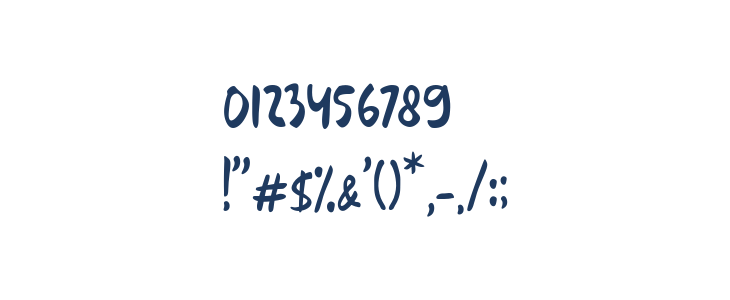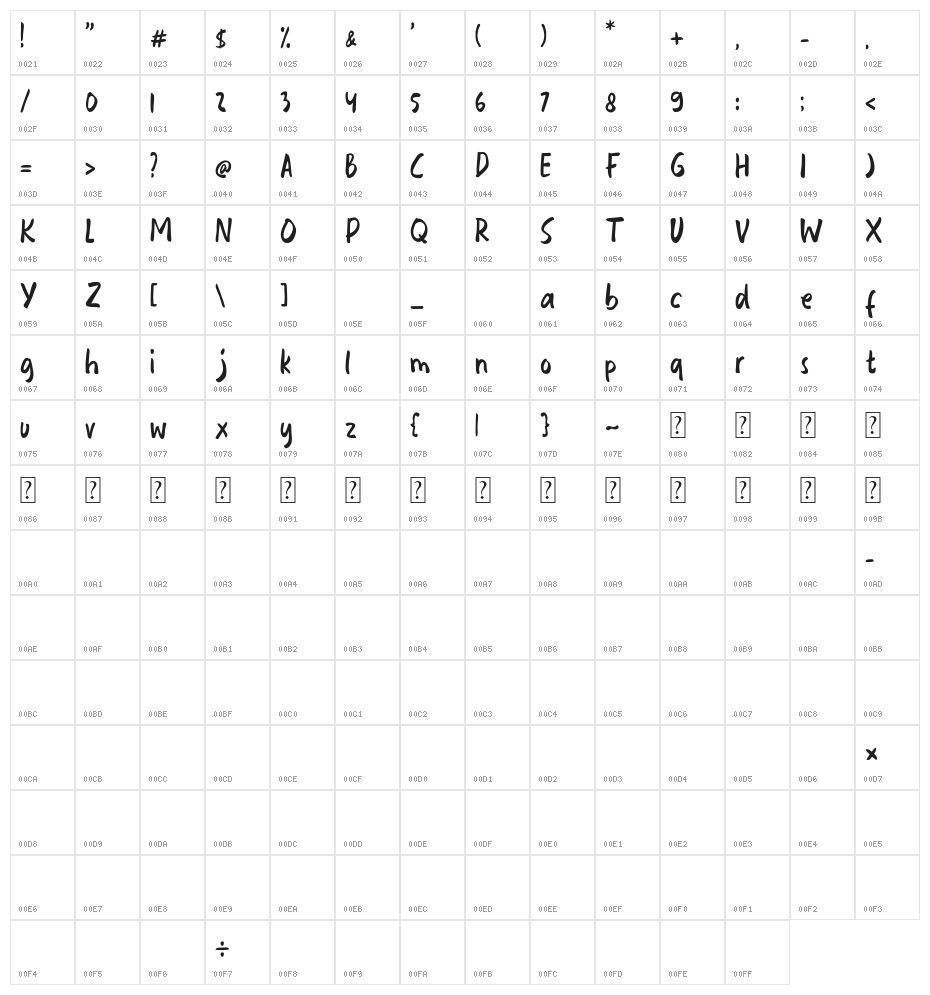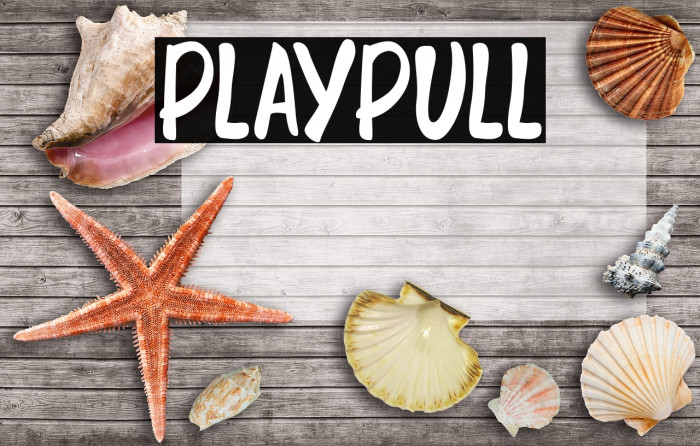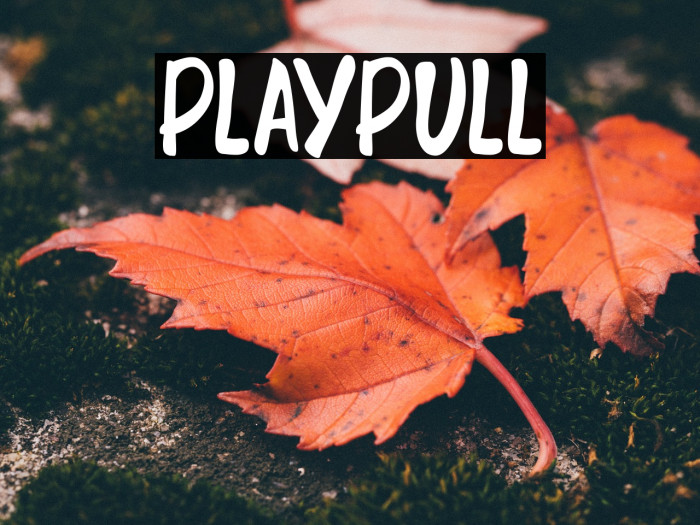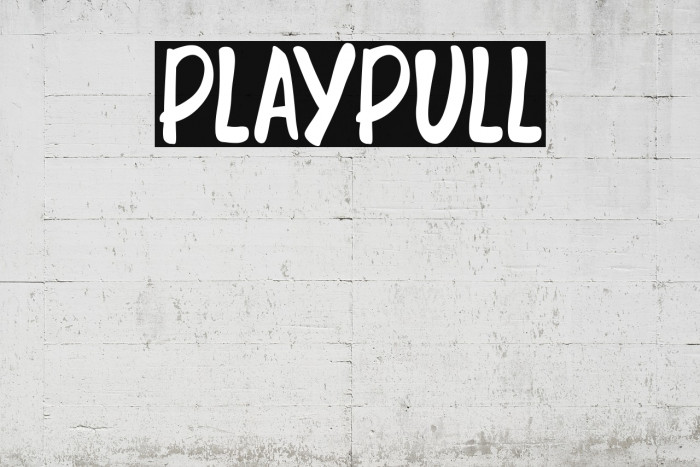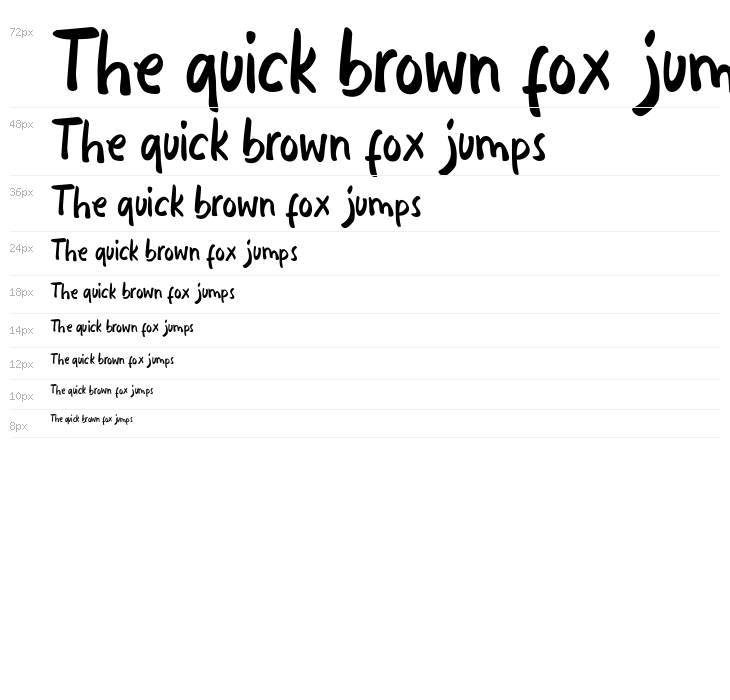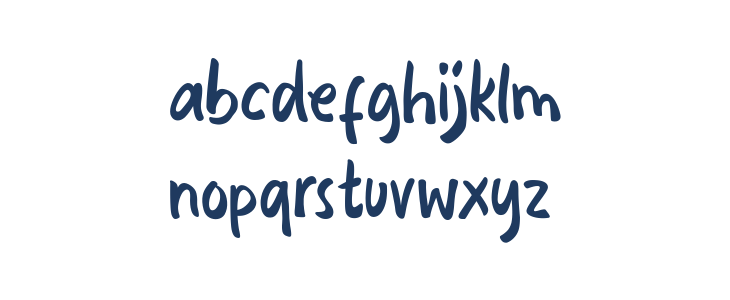
PLAYPULL Font
PLAYPULL Description
This font features a playful and informal handwritten style, characterized by its rounded and slightly irregular letterforms. The strokes are bold and consistent, giving it a friendly and approachable appearance. The uppercase and lowercase letters maintain a cohesive look, with a slight slant that adds to its casual charm. The numerals and special characters follow the same playful design, making it versatile for various uses. Its overall aesthetic is reminiscent of a personal touch, ideal for projects that require a warm and inviting feel.
Overall StyleCasual, Playful
Use CaseLogos, Headlines, Informal Invitations
Proposed ProjectsIdeal for greeting cards, children's books, playful branding, and social media graphics.